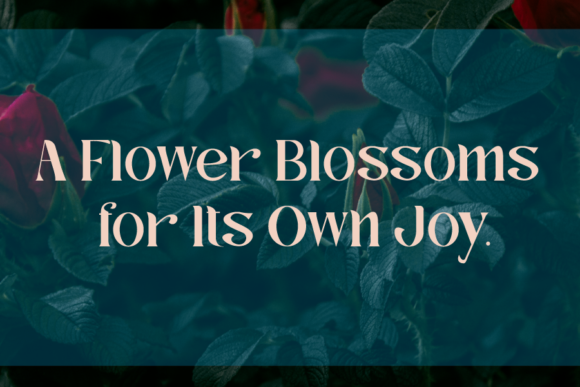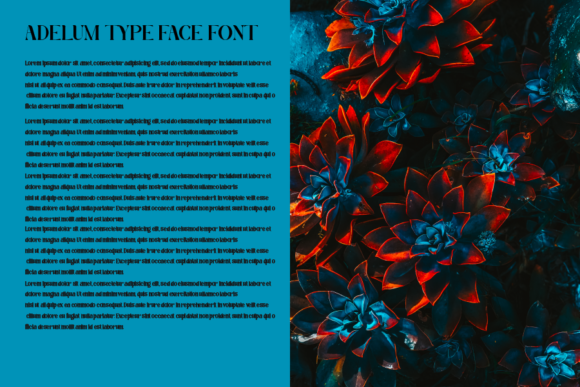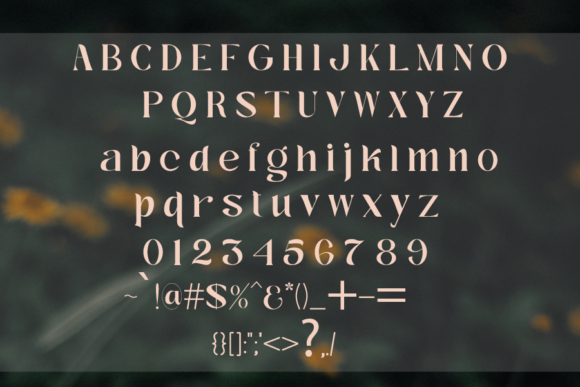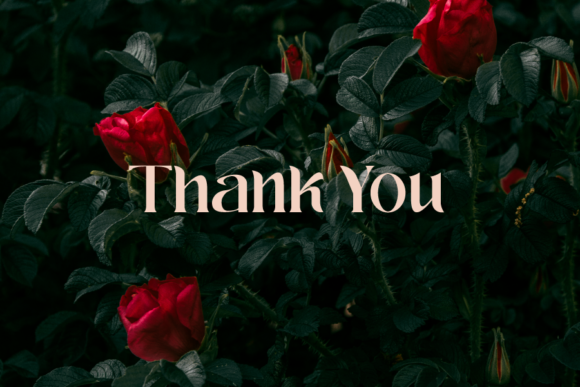
Introducing Adelium Font: Elevate Your Designs with Elegance and Boldness
Are you on the hunt for a font that exudes sophistication, elegance, and a touch of boldness? Look no further than Adelium Font. This stunning serif font is designed to make your creative projects stand out from the crowd, and its versatility ensures it can be seamlessly integrated into a wide array of designs. Whether you’re a seasoned designer or a crafting enthusiast, Adelium Font is about to become your new go-to choice for making a lasting impression.
The Essence of Adelium Font
Adelium Font is characterized by its bold and elegant features, making it a perfect blend of modern sophistication and classic charm. Its serif design adds a touch of tradition and reliability, while its bold strokes command attention and convey confidence. This font is meticulously crafted to ensure that it brings a high level of readability and aesthetic appeal to any project it’s used in.
One of the standout qualities of Adelium Font is its incredible versatility. It can be used across an incredibly large set of projects, ranging from:
• Branding and Logos: Create memorable brand identities with Adelium’s bold and elegant touch.
• Advertising and Marketing Materials: Draw attention and convey your message with confidence.
• Web Design: Enhance user experience with a font that’s both readable and visually appealing.
• Packaging: Stand out on store shelves with Adelium’s distinctive style.
• Stationery and Invitations: Add a touch of elegance to your paper goods.
• Digital Media: From social media posts to video titles, Adelium Font makes your content pop.
Why Choose Adelium Font?
With so many fonts available, why should Adelium Font be your top choice? Here are a few compelling reasons:
• Unique and Memorable: Adelium Font helps your designs leave a lasting impression.
• Highly Readable: Its clear and elegant design ensures your message is communicated effectively.
• Customizable: Experiment with different sizes, colors, and styles to match your creative vision.
• Time-Saving: With Adelium Font, you can achieve professional-looking results quickly and efficiently.
Tips for Using Adelium Font
To get the most out of Adelium Font, consider the following tips:
• Mix and Match: Combine Adelium with other fonts for a unique and personalized look.
• Play with Sizes: Use different font sizes to create visual hierarchy and emphasis.
• Experiment with Colors: Choose colors that complement or contrast with your design to make Adelium Font pop.
Adelium Font is more than just a font – it’s a design statement. Its bold and elegant serif design makes it the perfect choice for designers and crafters looking to elevate their projects. With its versatility, readability, and aesthetic appeal, Adelium Font is set to become an indispensable part of your creative toolkit. So why wait? Add Adelium Font to your collection today and watch your designs transform with elegance and boldness.
Whether you’re working on a professional project or a personal crafting endeavor, Adelium Font is your key to creating stunning, memorable designs that stand out. Experience the difference it can make and let your creativity shine like never before.